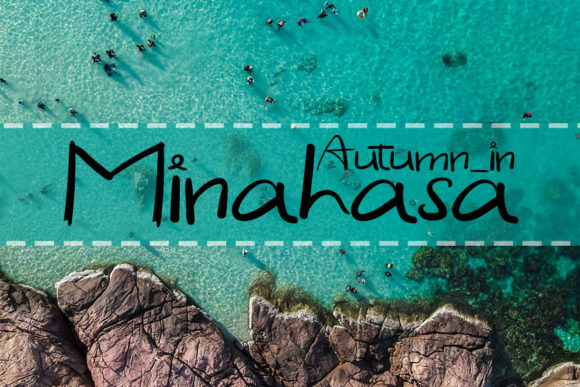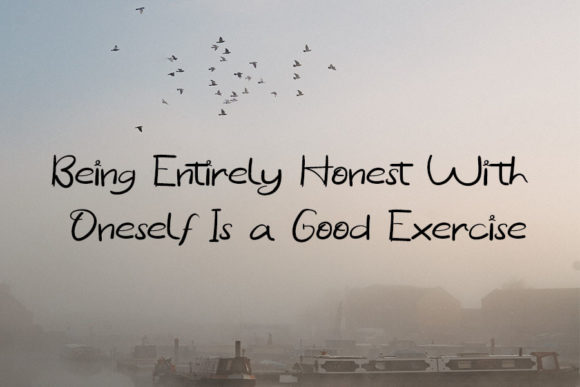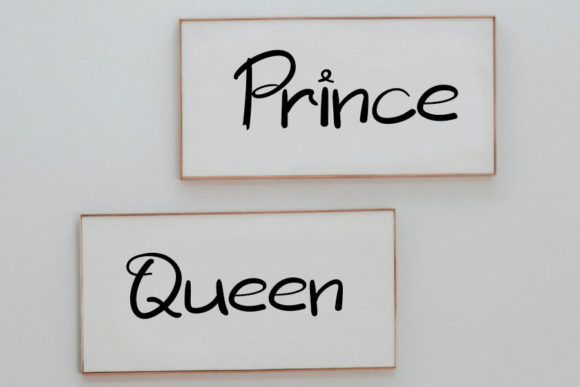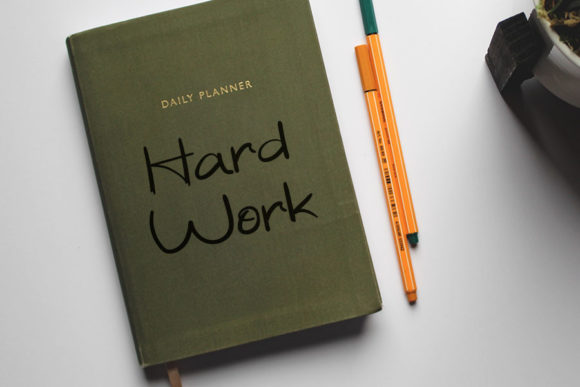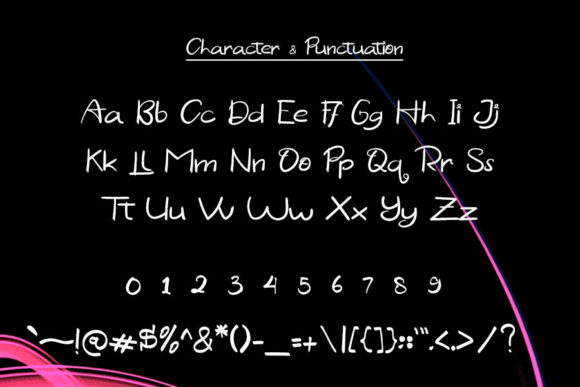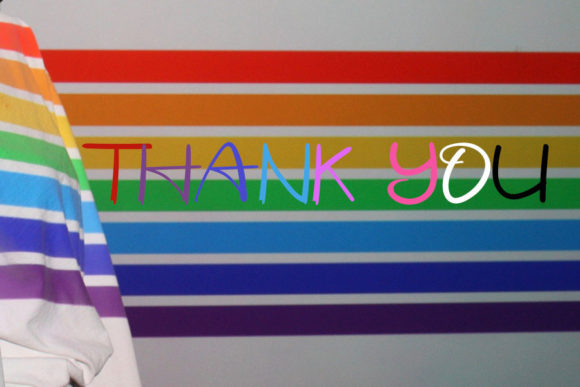
Autumn in Minahasa Font
About Autumn in Minahasa Font
Autumn in Minahasa is a cute handwritten font. Its sweet and full of life style makes this font a wonderful choice for brightening up your designs.